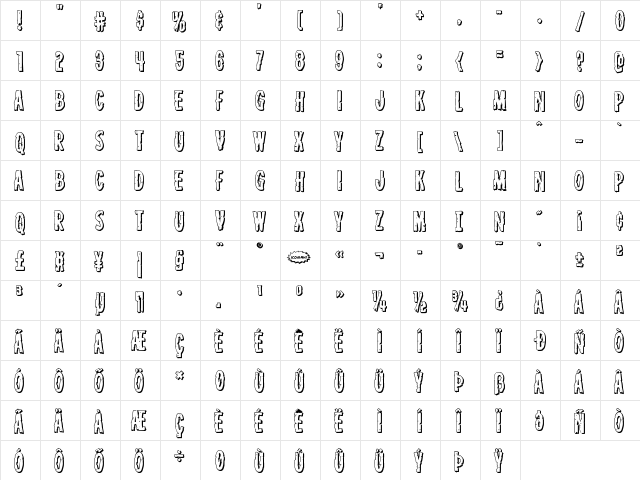
Carnival Corpse Shadow Regular
Design Context for Carnival Corpse Shadow Typeface
Carnival Corpse Shadow is built around its visual character rather than neutral utility — its distinctive forms are designed to make an impression at display sizes.
Font Pairing: Pair with a clean neutral sans-serif for body copy to let Carnival Corpse Shadow's character lead without overwhelming the composition.
Pro Tip: Use Carnival Corpse Shadow exclusively at display sizes — it was designed to be seen, not read at length. Let a neutral companion handle body copy.